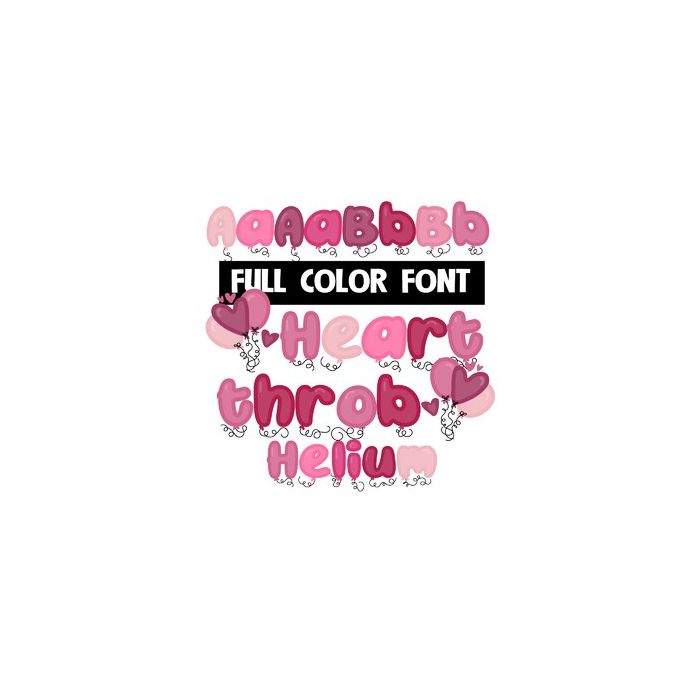
This full-color font features pink-colored balloons with stubby, curly strings. There is an alt case available through your system or Silhouette Studio with secondary colors. Access the heart balloon bouquets by typing the greater than and less than glyphs.